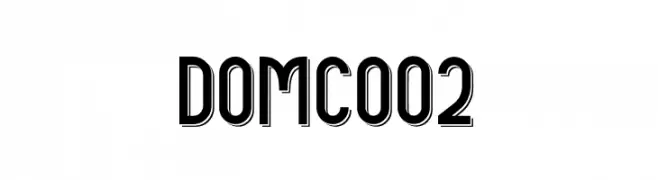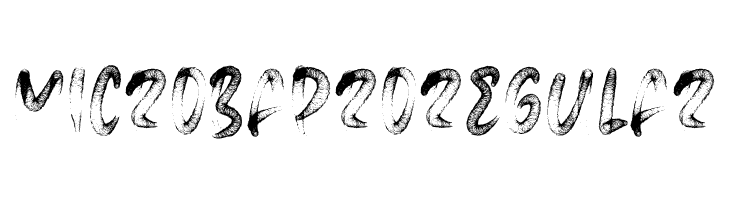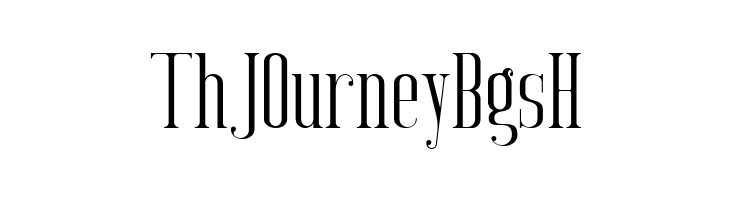
A bold, geometric font with a modern yet retro feel, perfect for headlines.
A modern, stencil-like font with a geometric and industrial design.
A bold, geometric font with clean lines and a modern appearance.
A classic serif font with elegant strokes and refined serifs.
A classic serif font with elegant, elongated strokes and refined serifs.
A cursive, handwritten font with elegant, flowing strokes.
A flowing, elegant handwritten font with elongated, smooth strokes.
A dynamic and expressive font with sharp, angular strokes and a sense of motion.
A rugged, hand-drawn font with a distressed and energetic style.
A bold, brush-stroke font with a distressed, hand-painted texture.